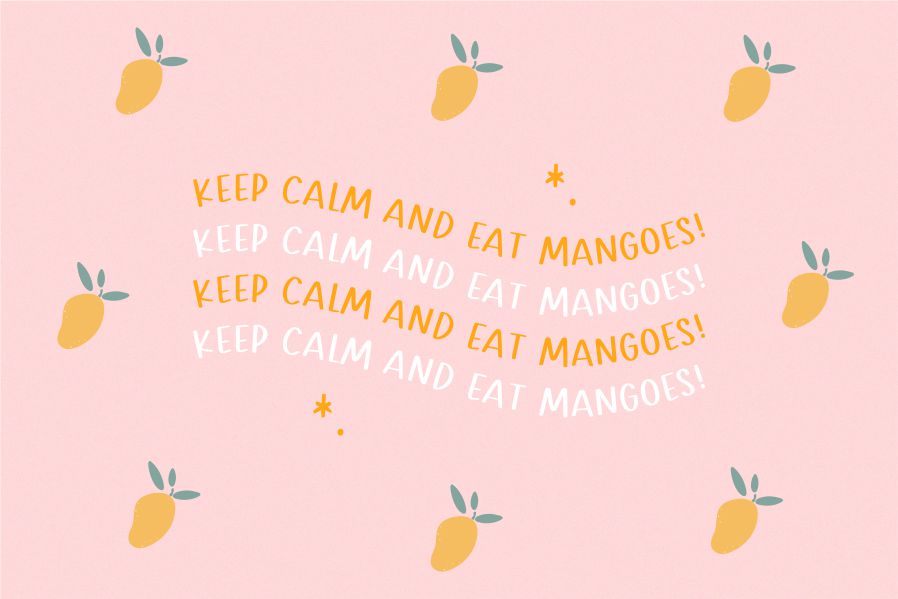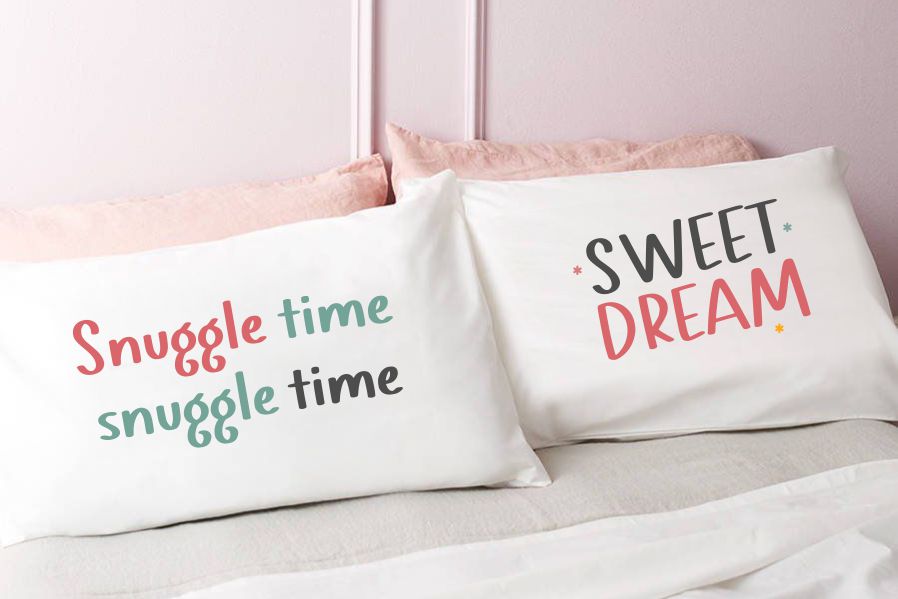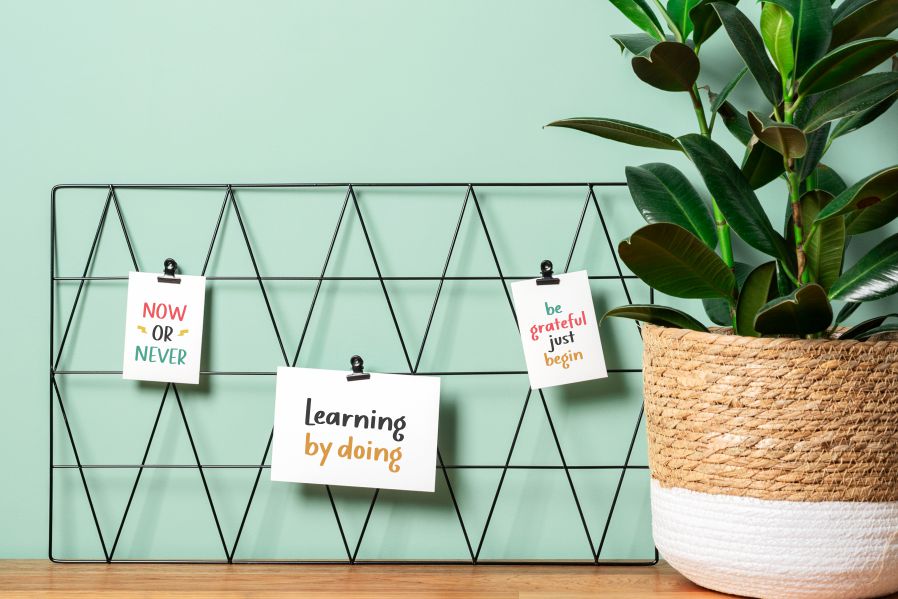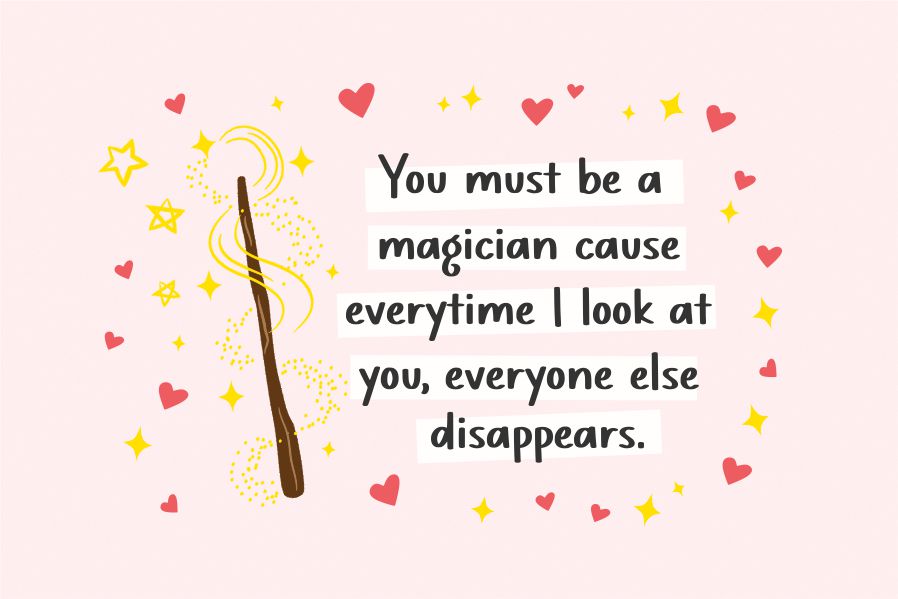
Mangoberry Font
Mangoberry Script Font
This is A Cute Handwriten Font. Mangoberry is perfect for product packaging, branding project, megazine, social media, weddings, or just used to express words above the background.